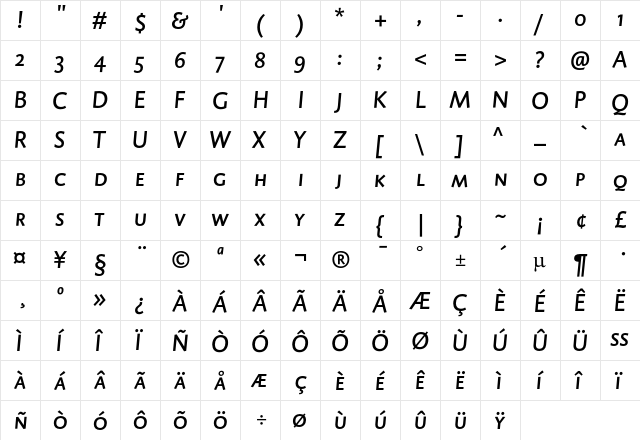
DTL Caspari T Caps Medium Italic
Design Context for DTL Caspari Typeface
DTL Caspari takes a measured approach to typography — its balanced proportions and neutral character make it a reliable workhorse for both digital and print work. The dynamic lean of this cut emphasises speed and emphasis in any layout.
Pro Tip: Use DTL Caspari for emphasis, pull quotes, and subheadings where its slanted energy can add rhythm to the layout.